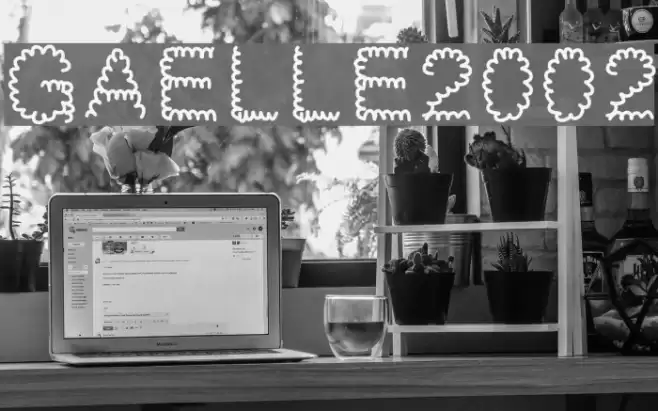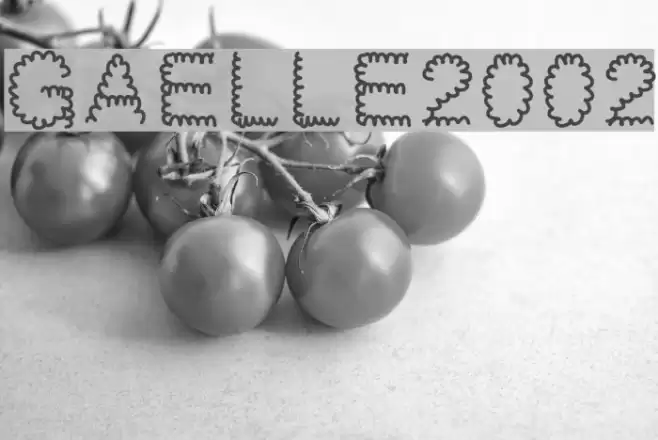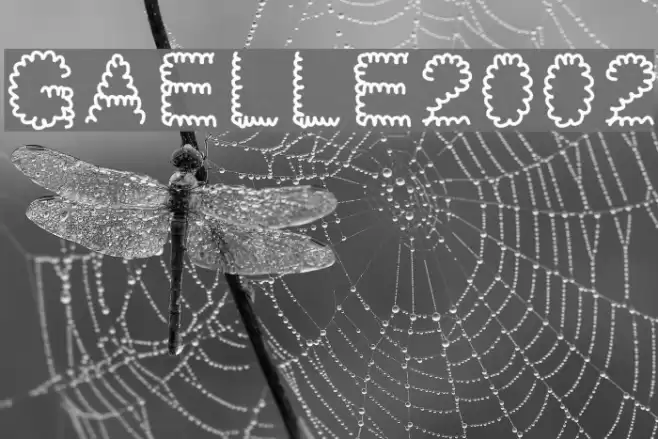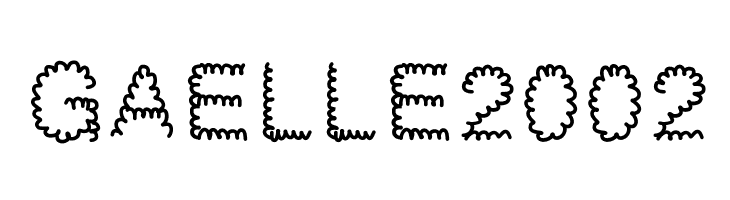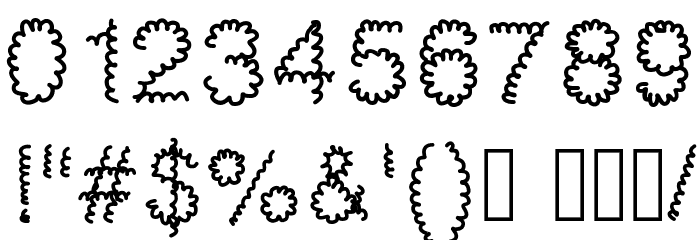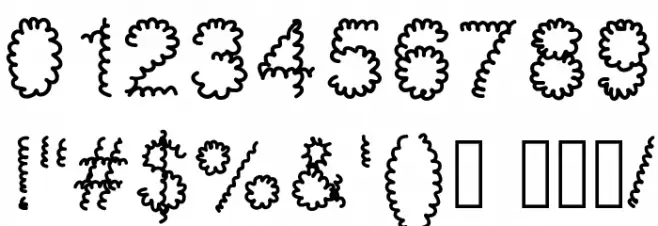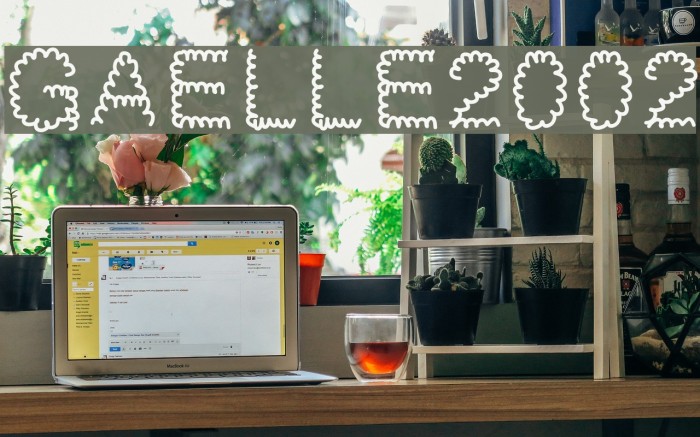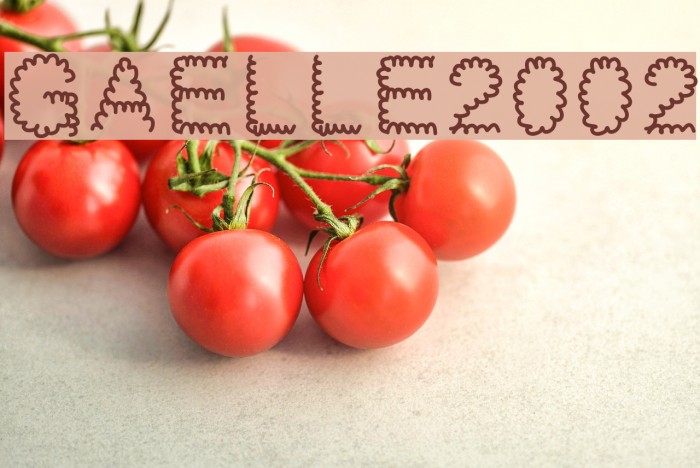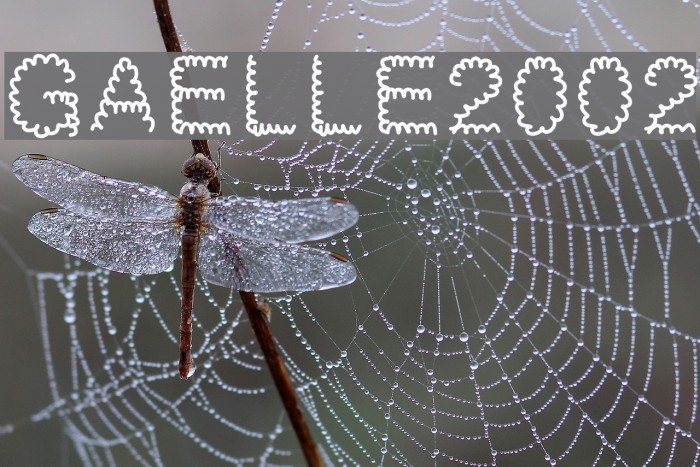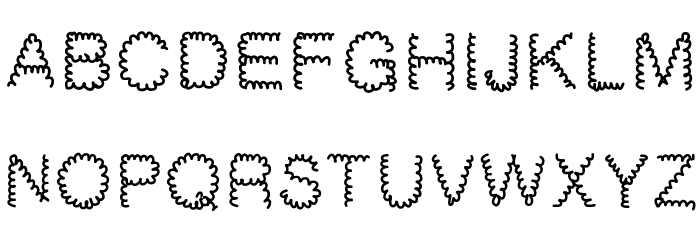
Gaelle2002 Font
Gaelle2002 Description
This font features a playful and whimsical design with each character outlined by a series of small, curly loops, giving it a unique and decorative appearance. The letters maintain a consistent height and width, ensuring readability despite the intricate detailing. The font's style is reminiscent of hand-drawn or doodle art, making it stand out with its creative flair. The numbers and special characters follow the same design principle, ensuring uniformity across all glyphs. This font is ideal for projects that require a fun and engaging visual element.
A playful, curly-loop decorative font with a hand-drawn feel from Handwritten fonts.
- Proposed Projects: Ideal for children's books, playful branding, party invitations, and creative posters.